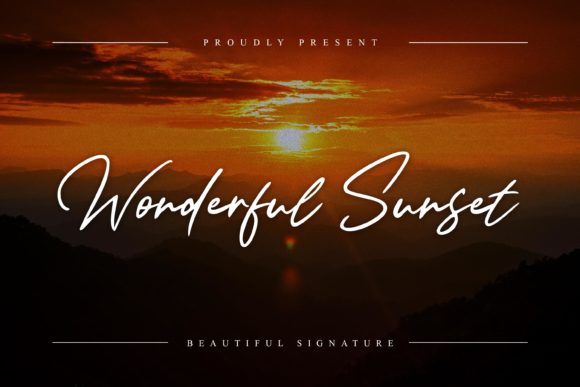
Behold the captivating allure of Wonderful Sunset, an exquisite script font that exudes elegance and sophistication, adding a touch of timeless charm to your creative endeavors. This enchanting font, inspired by the beauty of classic calligraphy, is a visual symphony that dances on the page with its perfect balance and graceful curves.
Unleash your imagination and let Wonderful Sunset elevate your designs with its versatility and adaptability. Whether you're crafting logos, branding materials, social media graphics, or wedding invitations, this font will transform your words into works of art. Its delicate strokes and flowing lines lend a touch of romance and elegance to every project, making it the perfect choice for those seeking a font that captures the essence of timeless beauty.
Discover the charm of Wonderful Sunset and let your creativity soar. Explore the boundless possibilities of this exquisite font and elevate your designs to new heights. With its timeless appeal and undeniable elegance, Wonderful Sunset will captivate your audience and leave a lasting impression.